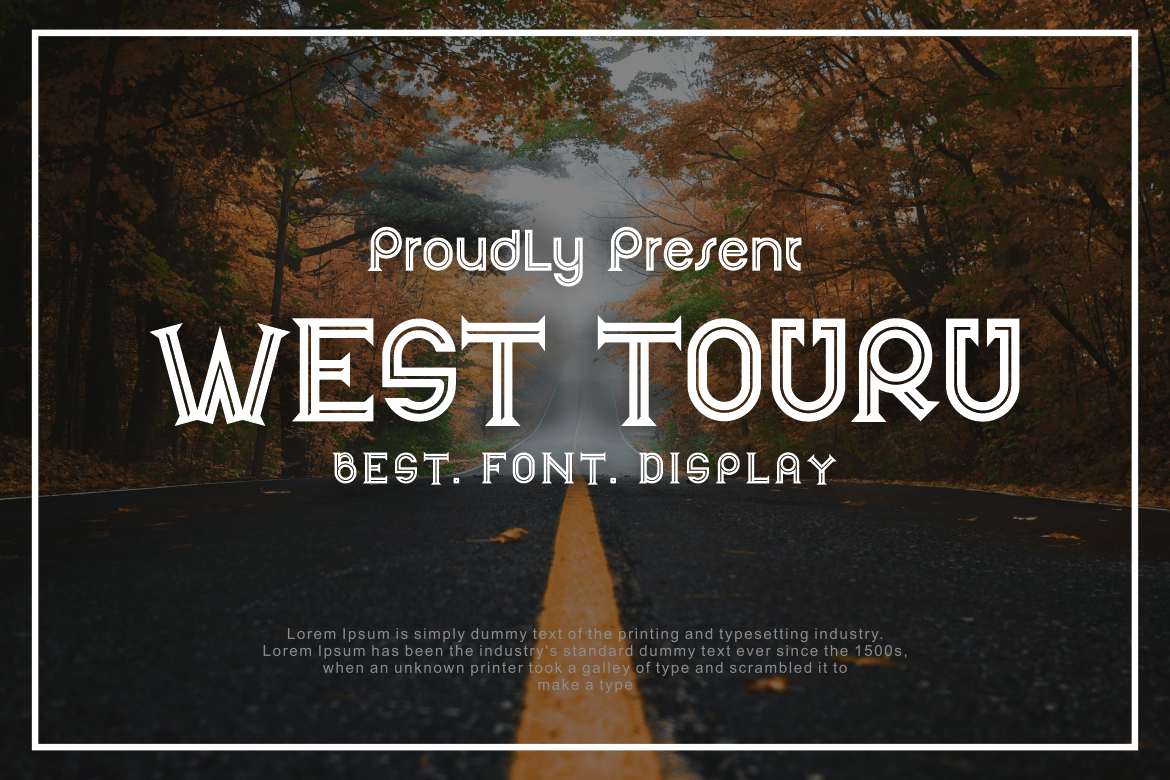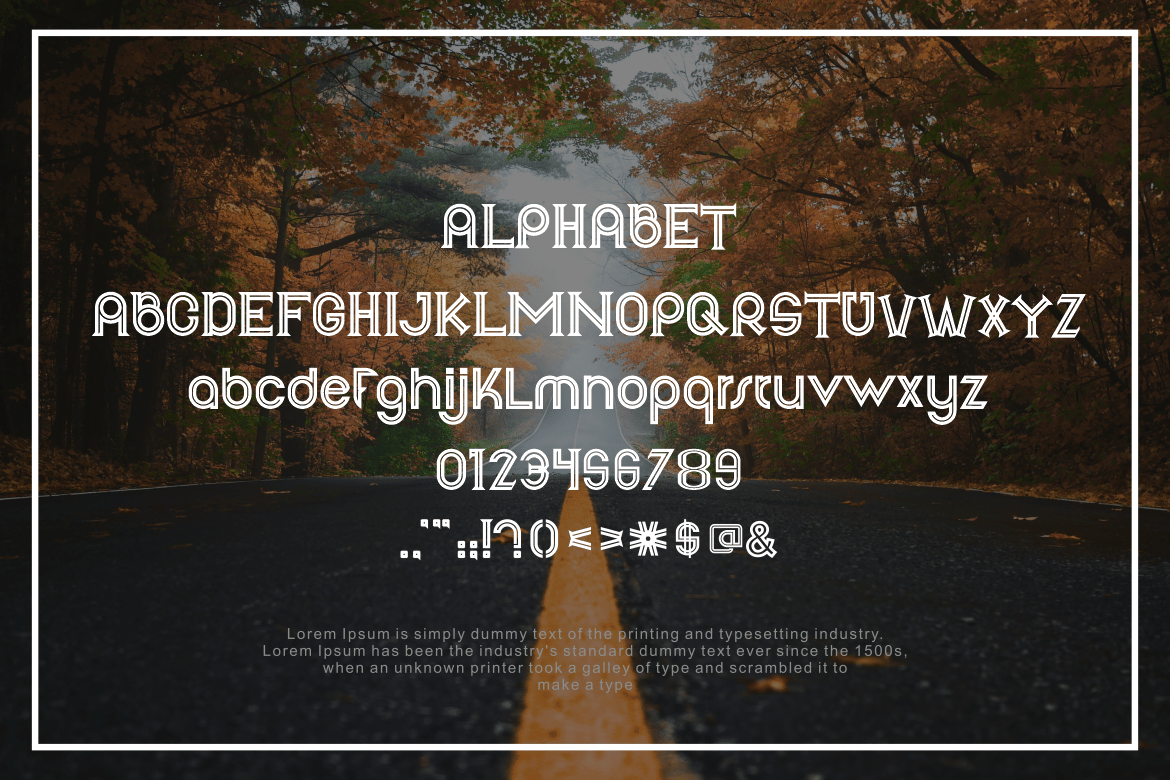
WEST TOURU FONT
Introducing our new product WEST TOURU FONT – Modern Font
WEST TOURU FONT – Modern Font is a bold and authentic display font. The font is suitable for any branding project like logo, t-shirt printing, esport, and many more. outstanding in a wide range of contexts.